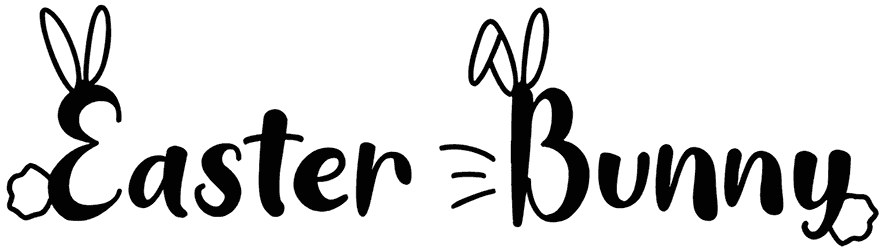
Easter Bunny Font
Easter Bunny is a tool for designers looking to filter the best options for their egg packaging. You can easily combine this bunny font with cartoon elements of little bunnies to add a stunning custom flourish to your projects.
The main characters in this Easter font are tools to make your brand unique, which can attract the attention of every viewer to your posters and ads in the crowded market of this night.